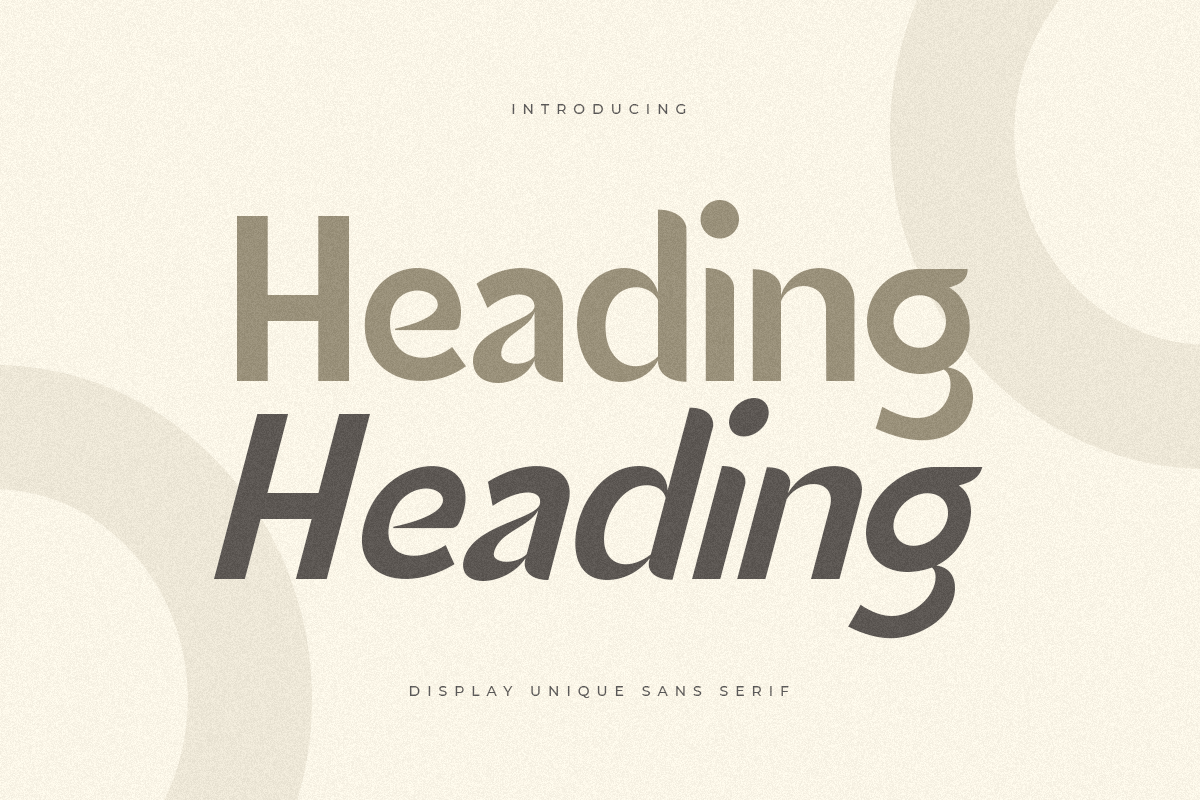
Heading
-Display Unique Sans Serif
Heading is an Unique sans serif display font that special created for Modern needs with unique style. A New Display font that we created special for Unique branding needs, with weird style that ready to add value of your brand. It’s so nice to leverage designer or product owner that need solutions to make their design look more unique and urban.
Heading Display Sans Serif font ready with:
• Ready with Regular and Italic Style